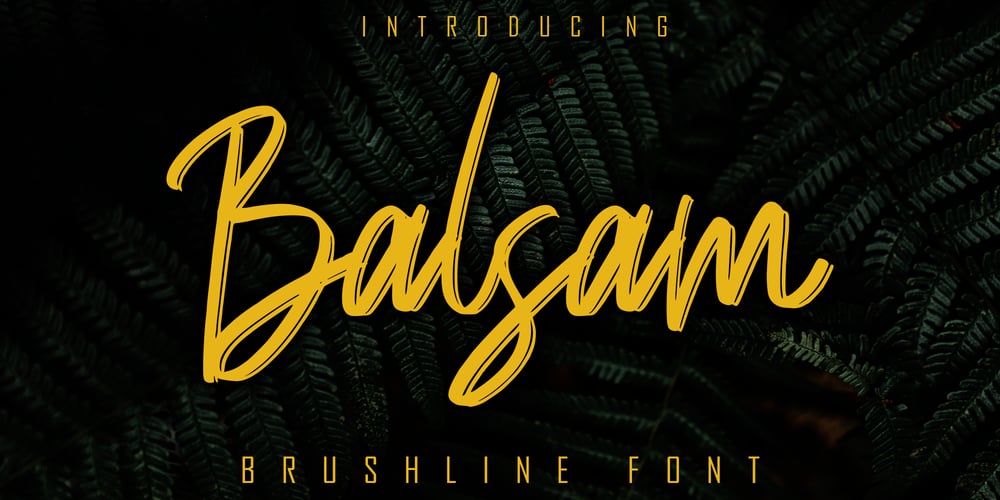
Balsam
Balsam font
Balsam Font Family was designed by Irfan Mahmudin and published by Skiiller Studio. Balsam contains 1 styles and family package options. Balsam is a natural handmade textured brush text font with an irregular base line. Suitable for use in title design. Such as clothing, covers, book titles, films, quotes, branding, logos, greeting cards, t-shirts, packaging designs, posters, and others. Balsam includes the full set of upper and lower case letters, as well as multi-language support, numbers, punctuation,